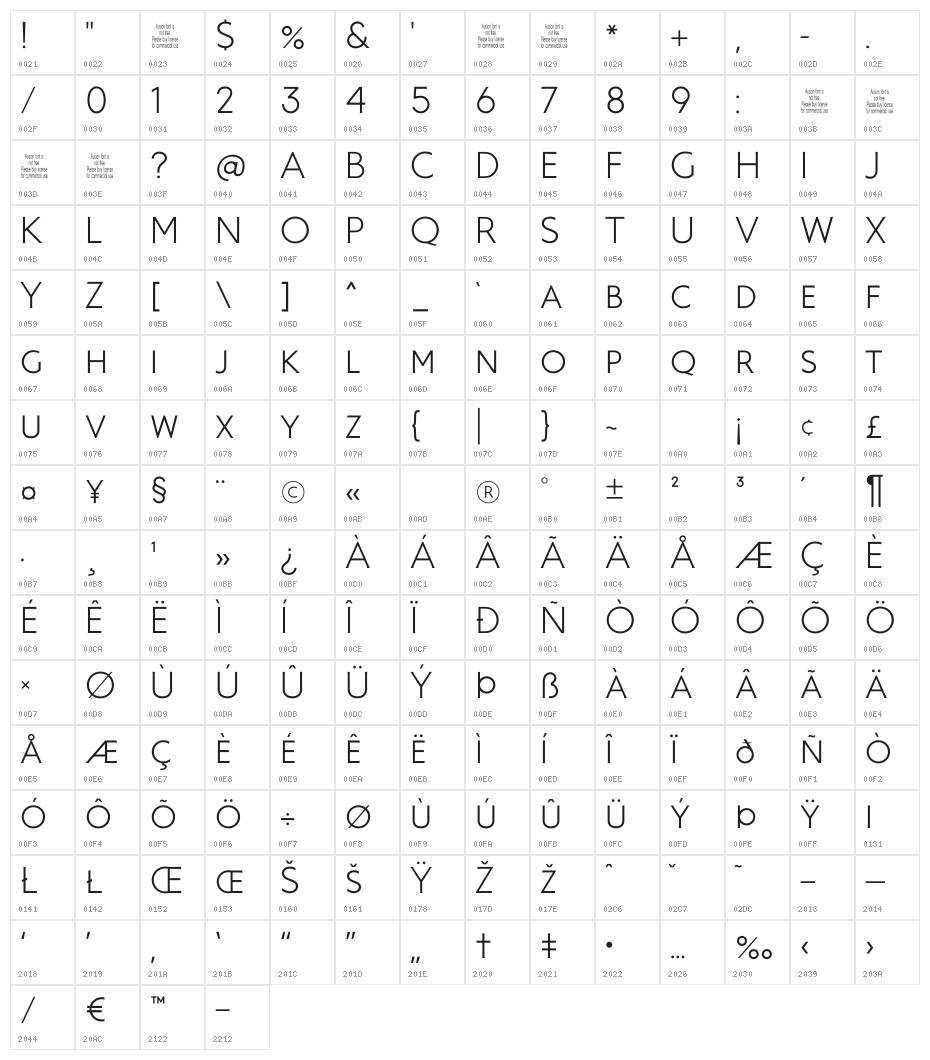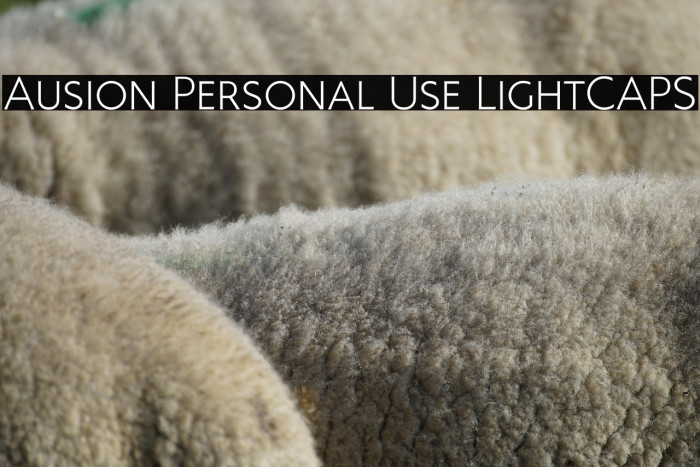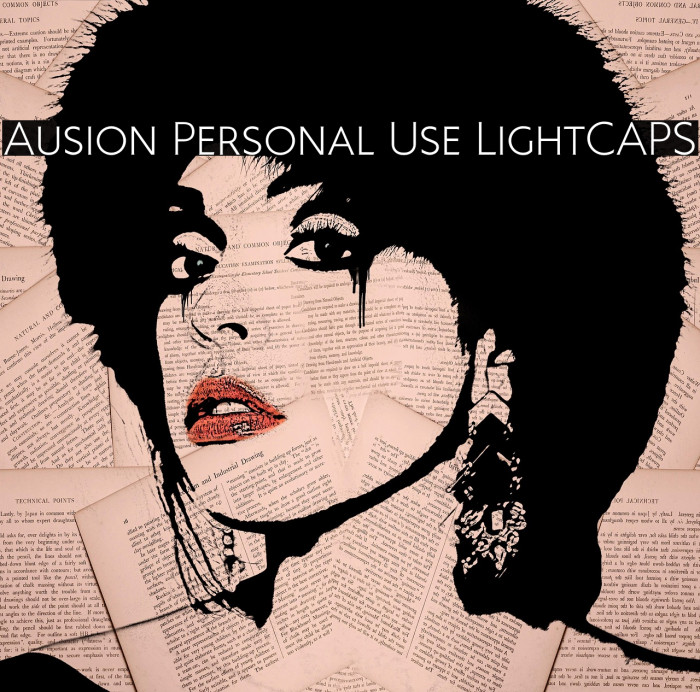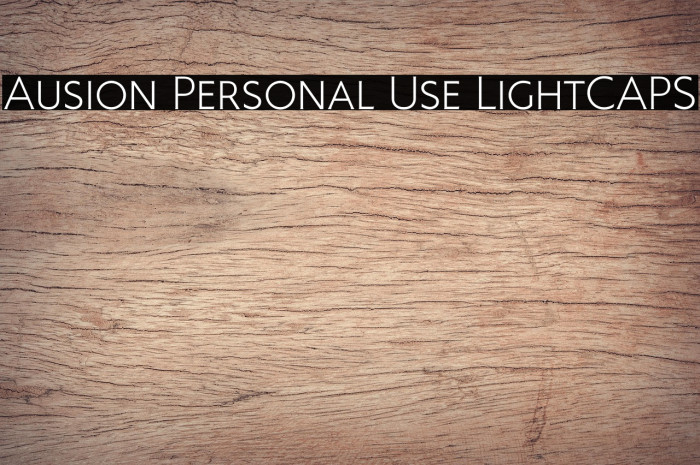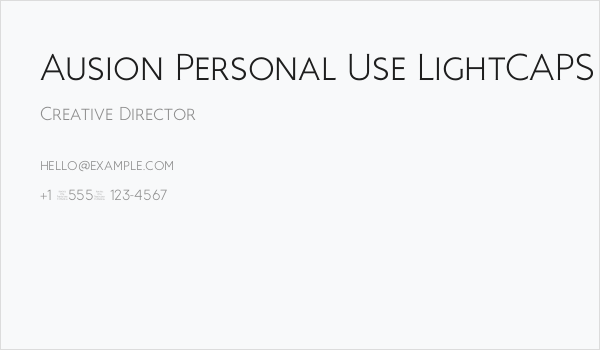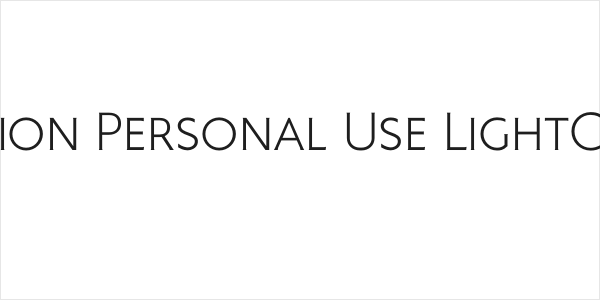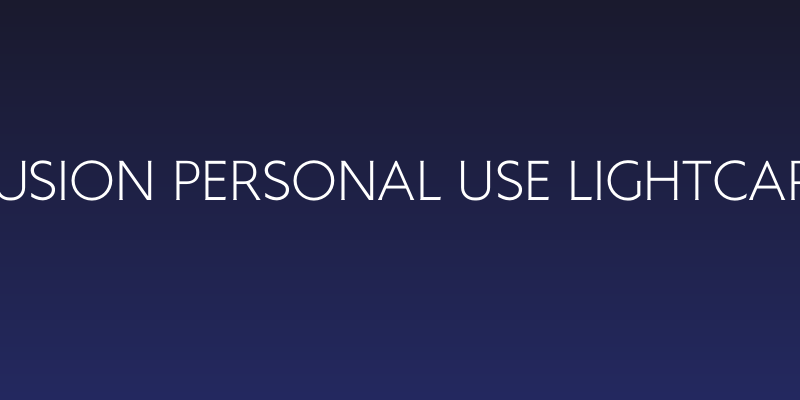
Ausion Personal Use LightCAPS Font
Ausion Personal Use LightCAPS Description
This font features a clean and modern design with a focus on simplicity and readability. The characters are evenly spaced with a uniform stroke width, giving it a balanced and harmonious appearance. The uppercase letters are tall and slightly condensed, while the lowercase letters maintain a consistent height, enhancing legibility. The numerals are clear and distinct, making them suitable for various applications. Special characters are well-defined, adding versatility to the font's use. Overall, this font exudes a contemporary and professional vibe, making it ideal for both digital and print media.
| Proposed Projects | Ideal for corporate branding, web design, editorial layouts, and advertising materials. |